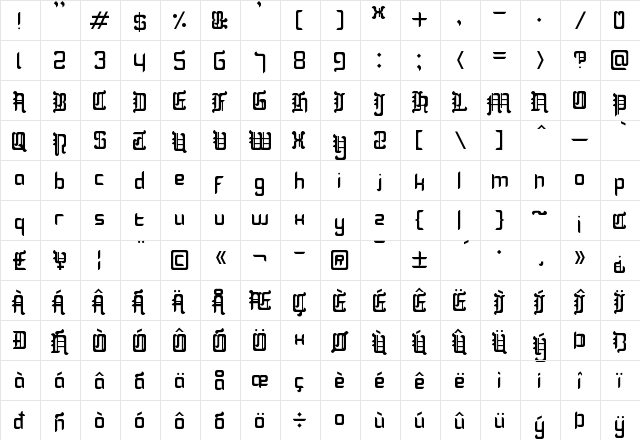
Blackletter Buffoonery Regular
| Designer | GameDevDan |
Design Context for Blackletter Buffoonery Typeface
Blackletter Buffoonery draws on the rich tradition of blackletter calligraphy, with dense, angular strokes that evoke medieval manuscripts and old-world craftsmanship.
A natural fit for music packaging, gothic editorial design, and any project that needs historical weight.
Font Pairing: Pair with a clean neutral sans-serif for body copy to let Blackletter Buffoonery's character lead without overwhelming the composition.
Pro Tip: Reserve Blackletter Buffoonery for display and logo use — pair it with a clean sans-serif for body copy to prevent the composition from feeling oppressive.